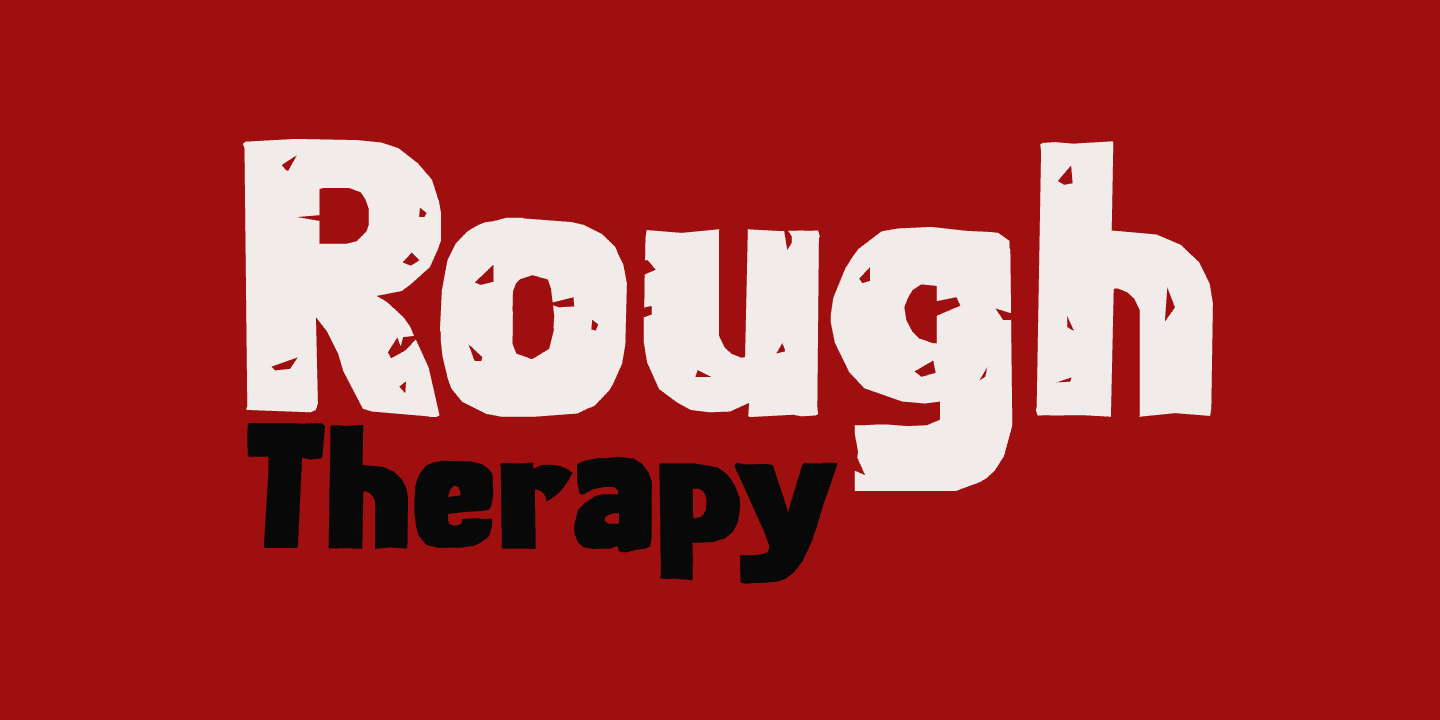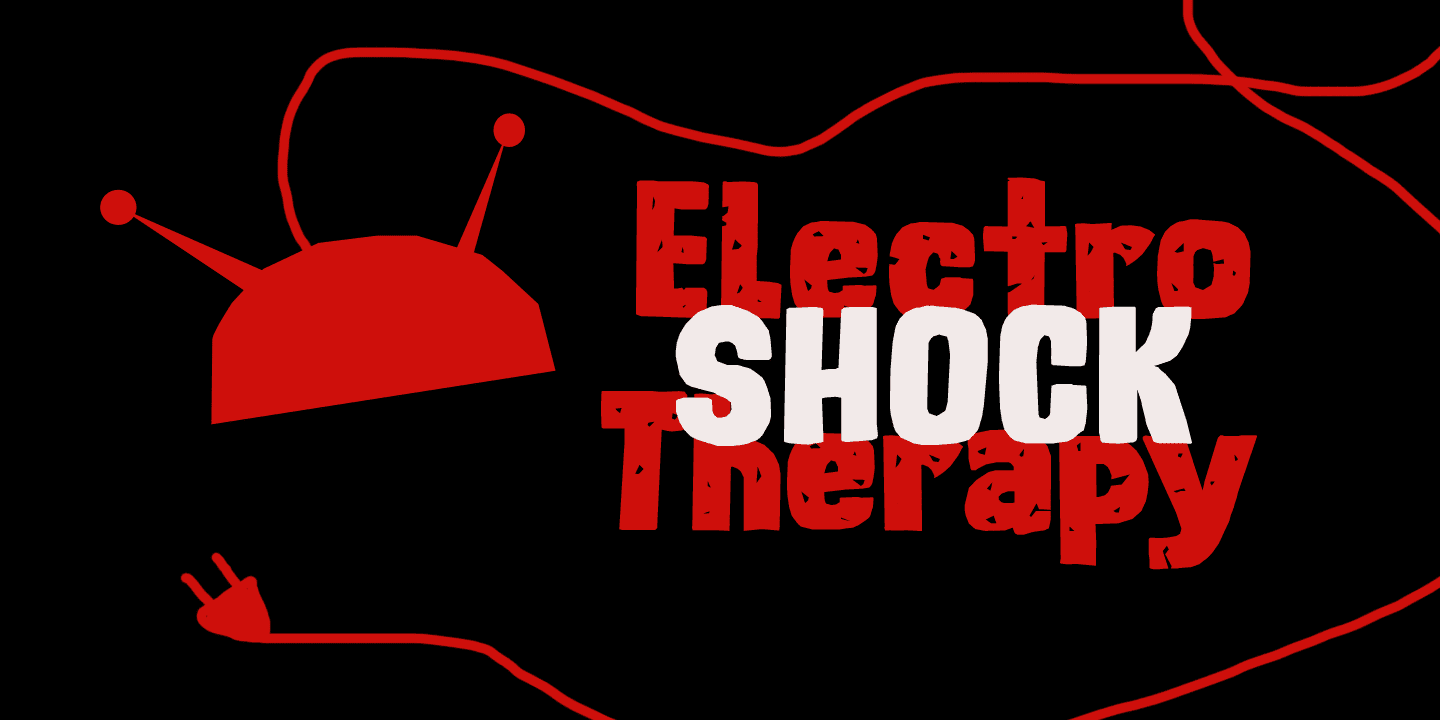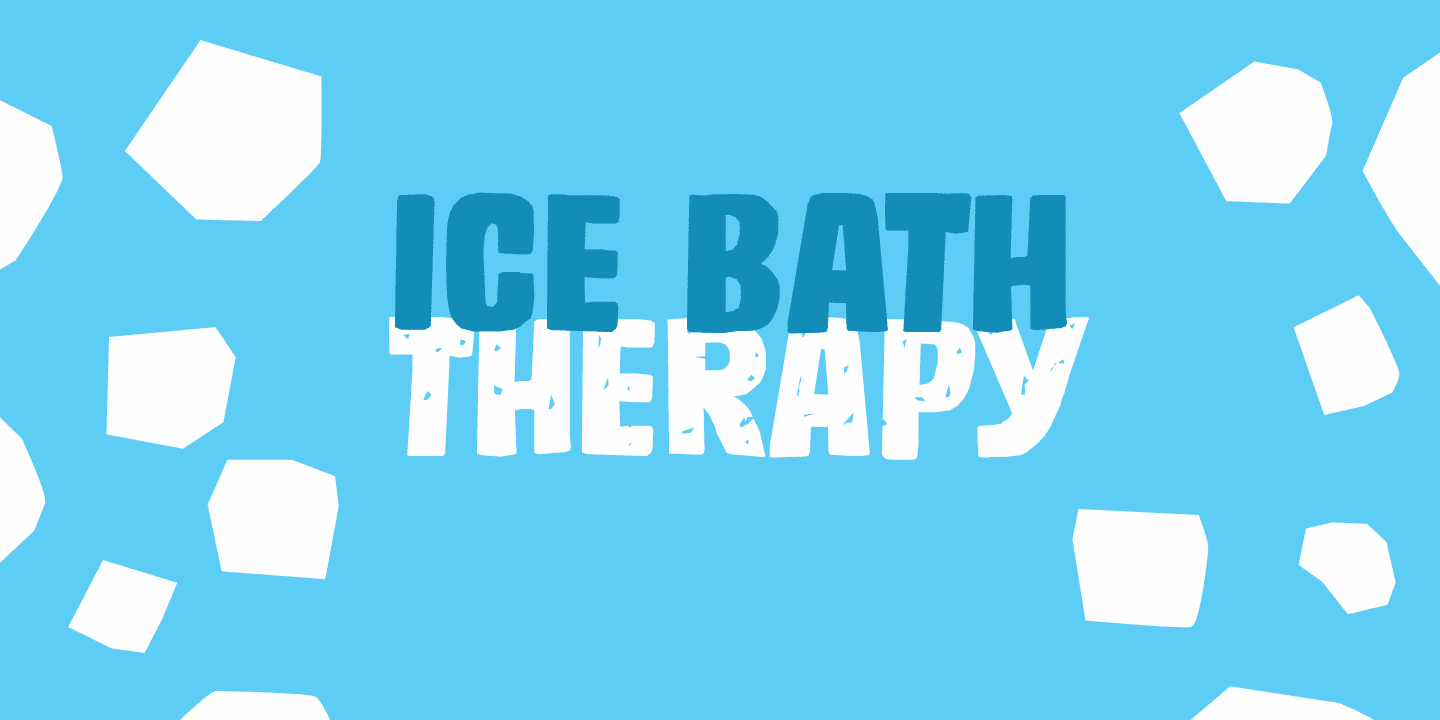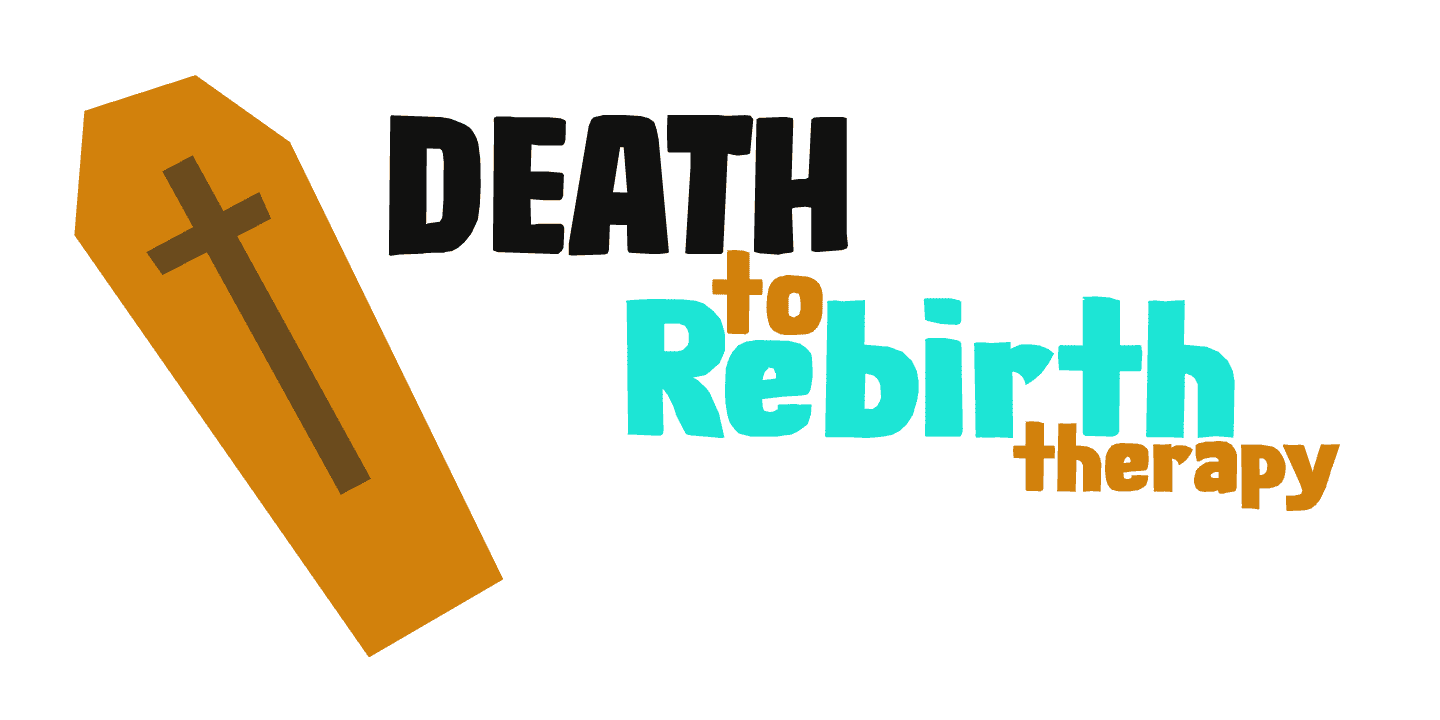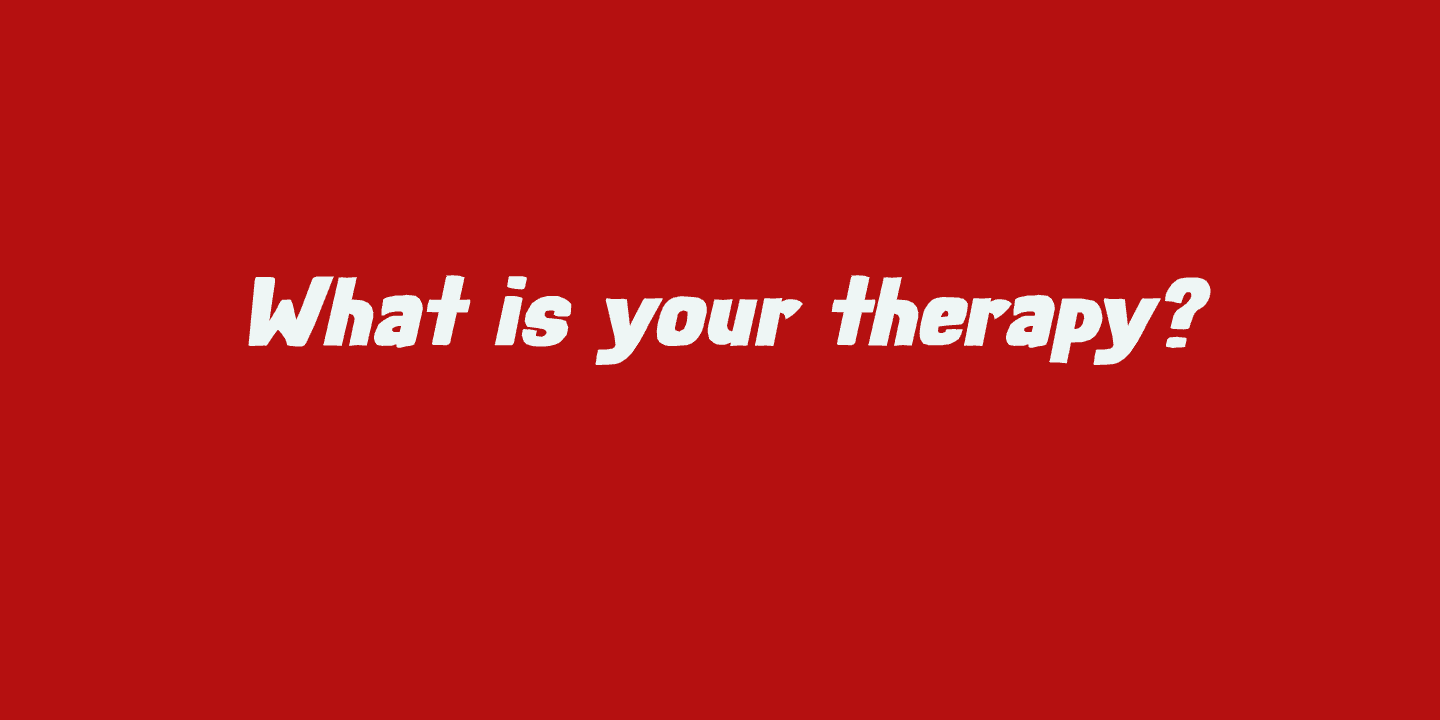
No, I don’t need therapy - at least, not that I’m aware of. I needed a bold and rough name for this bold and rough font.
Rough Therapy is a strong display font. Comes in a clean and a dirty version, so take your pick!